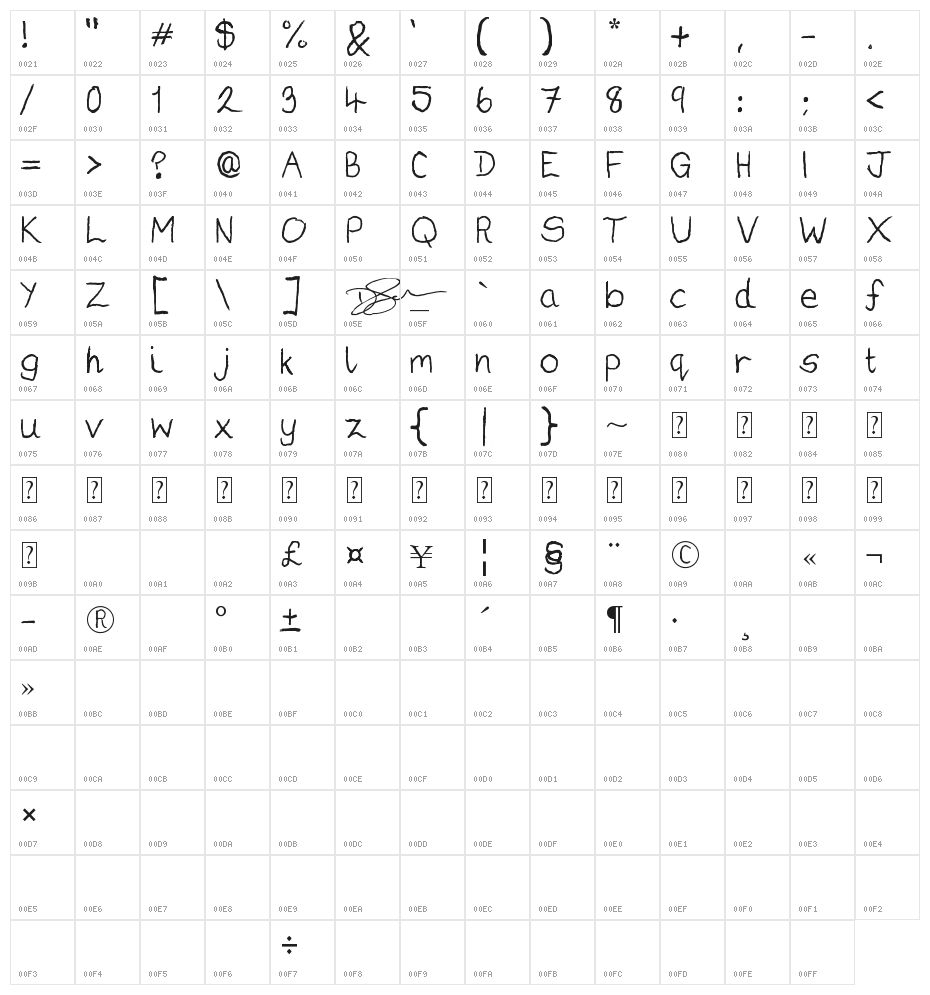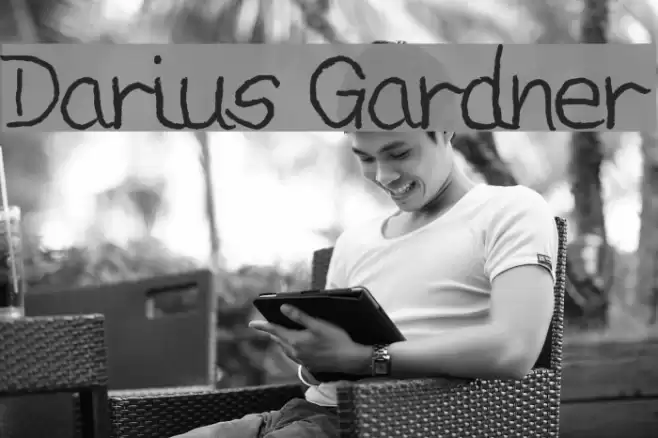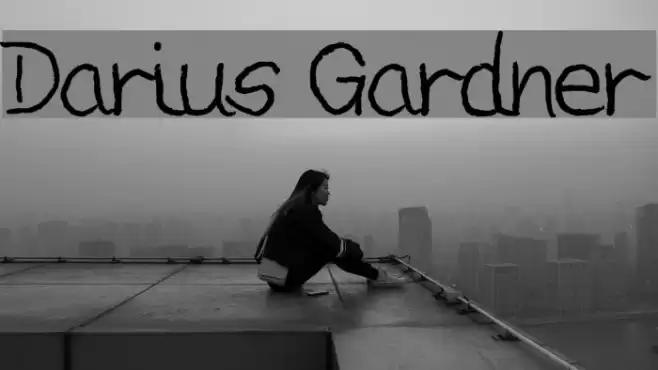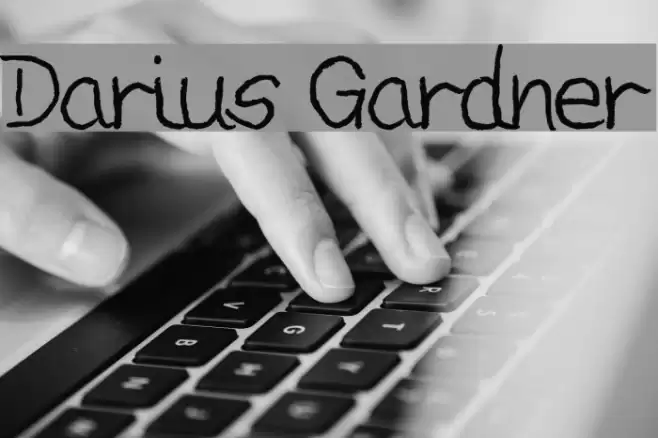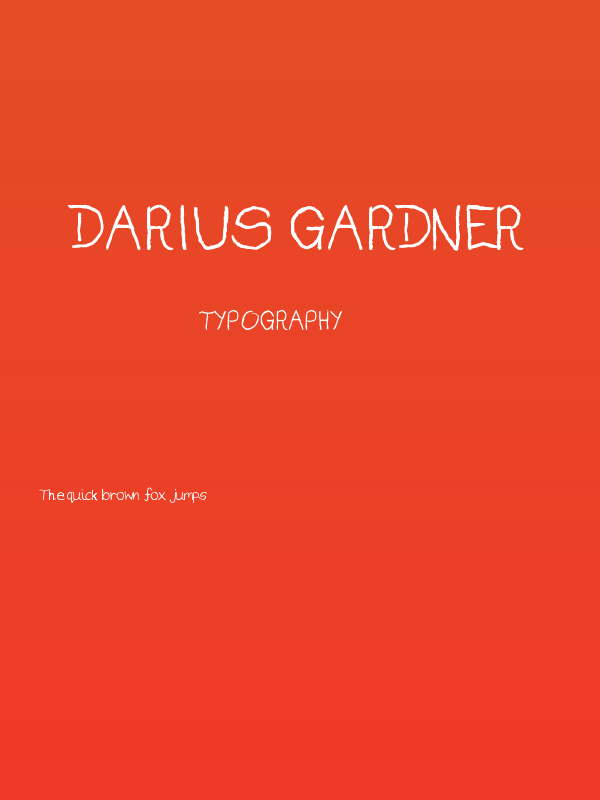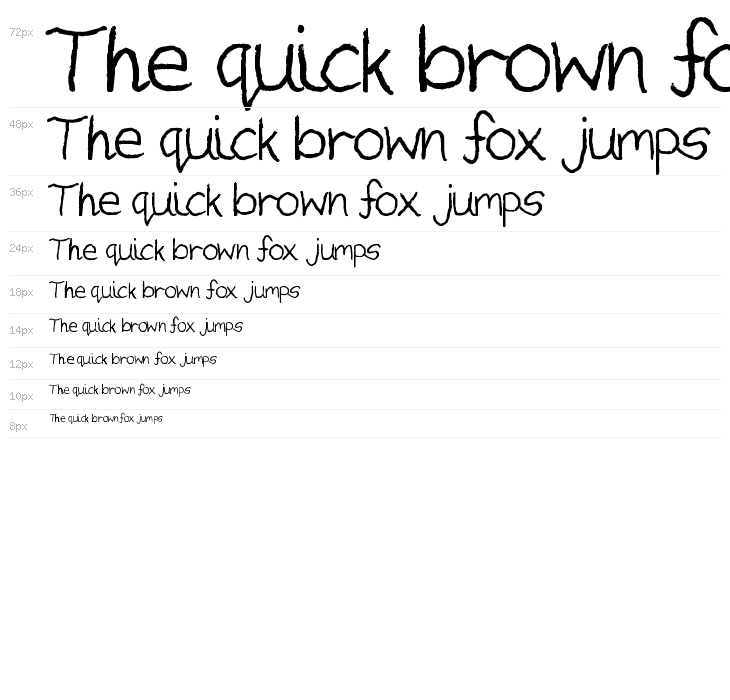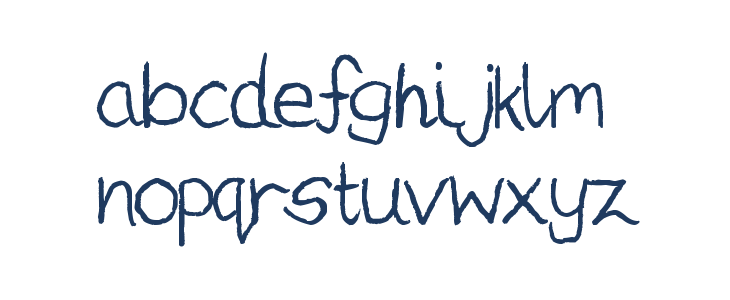
Darius Gardner Font
Darius Gardner Description
This font features a hand-drawn, organic style with a casual and approachable feel. The characters are slightly irregular, giving it a playful and informal appearance. The strokes are uneven, mimicking the natural flow of handwriting, which adds a personal touch. The uppercase and lowercase letters maintain a consistent style, while the numerals and special characters blend seamlessly into the overall design. This font is ideal for projects that require a human touch, such as invitations, greeting cards, or personal branding.
| Use Case | Headlines, Informal text, Personal projects |
| Proposed Projects | Ideal for invitations, greeting cards, personal branding, and informal communication. |